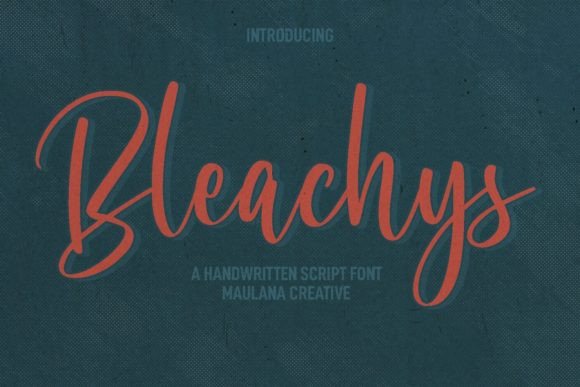
Indulge in the ethereal elegance of Bleachys, the captivating script font that effortlessly transforms your designs into masterpieces. Its high-contrast strokes dance across the page, adding a touch of playfulness to your creations. With its charming characters adorned with a hint of ligature and alternates, Bleachys empowers you to let your creativity soar.
Envision your logo design adorned with the distinctive allure of Bleachys. Its whimsical charm will elevate your brand identity, making it unforgettable in the digital realm. Craft captivating social media posts that resonate with your audience, leaving an indelible impression. Let Bleachys grace the titles of your films and books, imbuing them with an air of intrigue and sophistication.
Whether you're composing short or extended texts, Bleachys adapts effortlessly, lending its refined touch to each word. Its versatility extends to complementing sans or serif fonts seamlessly, creating harmonious designs that captivate the eye. Unleash your artistic vision with Bleachys, the font that will transform your designs into captivating works of art.
Bleachys beckons you to embrace its charm and let your imagination run wild. Its strokes are a symphony of creativity, inviting you to craft designs that are both visually stunning and emotionally resonant. Elevate your designs to new heights with Bleachys, the font that will leave an indelible mark on your audience.